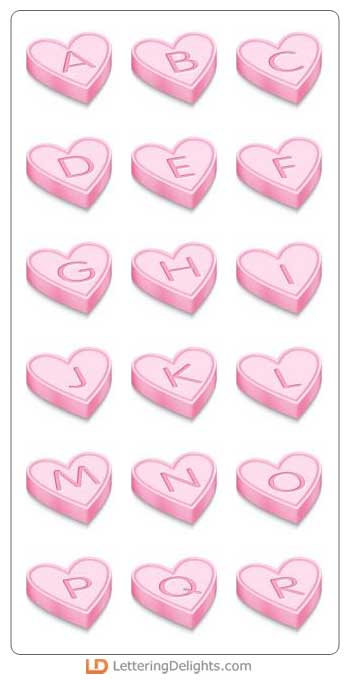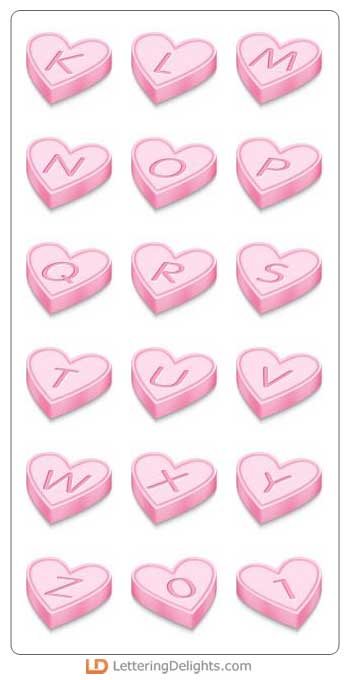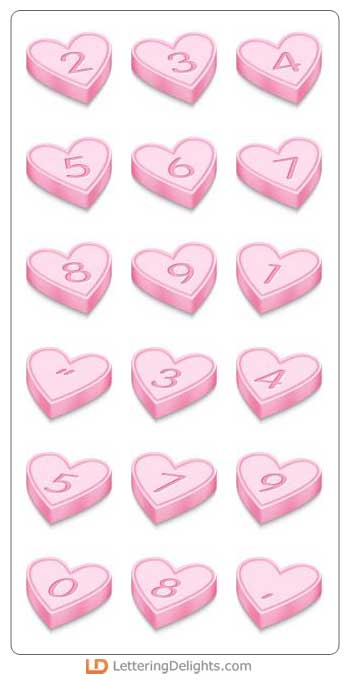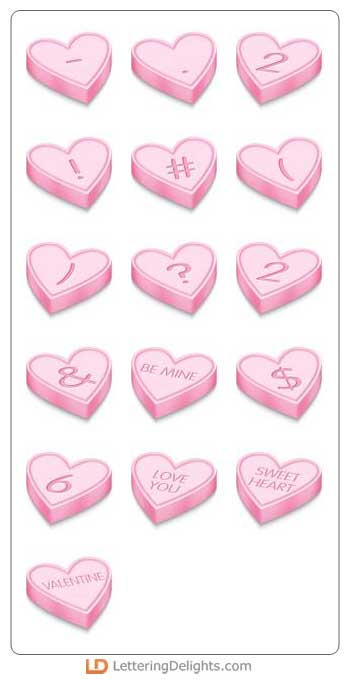
This alphabet reminds you of the fun carefree days of youth when you opened a box of sweethearts and looked to see the messages written on the hearts. Each letter is on a pink 3D heart. You can almost taste that light peppermint flavor.